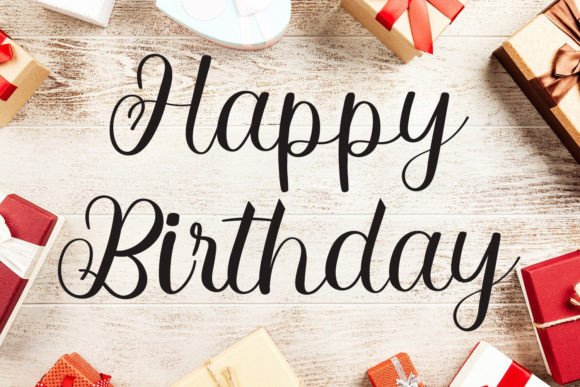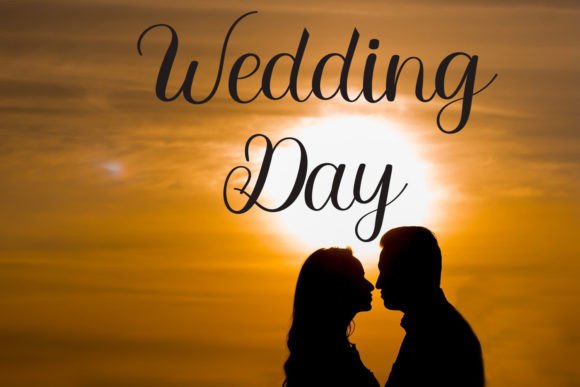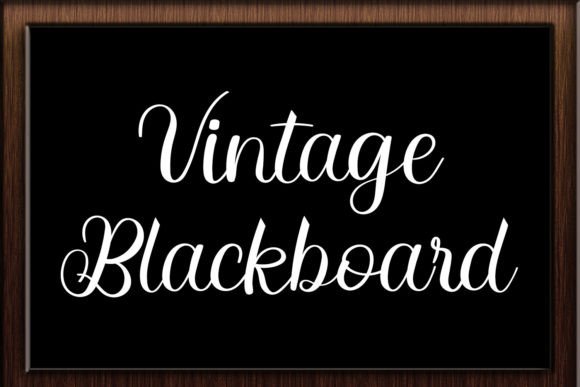
Introducing Buddy Font: The Sweet and Delicate Handwritten Font for Romantic Designs
Are you a designer or crafter looking for a font that can add a touch of romance and personality to your designs? Look no further than Buddy Font, a sweet and delicate handwritten font that’s perfect for creating wedding invitations, cards, and other designs that require a personal touch.
What is Buddy Font?
Buddy Font is a beautiful, handwritten font that’s designed to be dainty and joyful. Its delicate strokes and elegant curves make it an ideal choice for creating romantic and feminine designs. Whether you’re designing a wedding invitation, a greeting card, or a personalized gift, Buddy Font is the perfect choice.
Characteristics of Buddy Font
So, what makes Buddy Font so special? Here are some of its key characteristics:
- Handwritten style: Buddy Font has a beautiful, handwritten style that’s perfect for creating personal and romantic designs.
- Delicate strokes: The font features delicate strokes and elegant curves that give it a dainty and feminine touch.
- Joyful feel: Despite its delicate nature, Buddy Font has a joyful feel that’s perfect for creating designs that are happy and uplifting.
- Romantic vibe: The font has a romantic vibe that’s perfect for creating wedding invitations, cards, and other designs that require a personal touch.
Uses for Buddy Font
So, what can you use Buddy Font for? The possibilities are endless! Here are some ideas to get you started:
- Wedding invitations: Buddy Font is perfect for creating beautiful and romantic wedding invitations that will set the tone for your special day.
- Greeting cards: The font is also great for creating greeting cards for special occasions, such as birthdays, anniversaries, and holidays.
- Personalized gifts: Buddy Font is perfect for creating personalized gifts, such as customized mugs, tote bags, and jewelry.
- Stationery: The font is also great for creating beautiful and elegant stationery, such as letterheads, journals, and notebooks.
Why Choose Buddy Font?
So, why should you choose Buddy Font for your designs? Here are some reasons:
- Unique and elegant: Buddy Font is a unique and elegant font that’s sure to make your designs stand out.
- Easy to read: Despite its delicate nature, Buddy Font is easy to read and understand, making it perfect for creating designs that require a personal touch.
- Versatile: The font is versatile and can be used for a wide range of designs, from wedding invitations to greeting cards and personalized gifts.
- High-quality: Buddy Font is a high-quality font that’s designed to deliver exceptional results.
Tips for Using Buddy Font
Here are some tips for using Buddy Font in your designs:
- Pair with other fonts: Buddy Font looks great when paired with other fonts, such as sans-serif fonts or script fonts.
- Use for headings and titles: The font is perfect for creating headings and titles that require a personal touch.
- Experiment with colors: Buddy Font looks great in a variety of colors, from soft pastels to bold and bright colors.
- Use for digital and print designs: The font can be used for both digital and print designs, making it versatile and convenient.
In conclusion, Buddy Font is a beautiful and delicate handwritten font that’s perfect for creating romantic and personalized designs. Its unique and elegant style makes it an ideal choice for designers and crafters who want to add a touch of romance and personality to their designs. Whether you’re designing a wedding invitation, a greeting card, or a personalized gift, Buddy Font is the perfect choice.